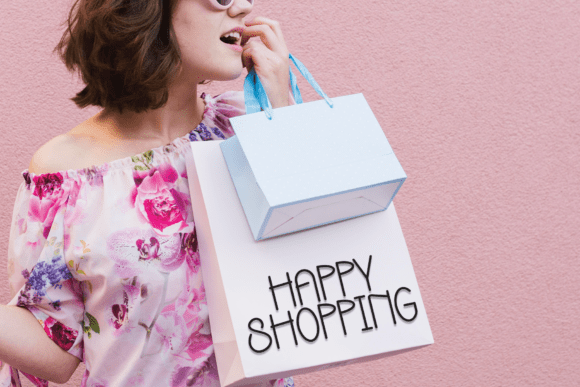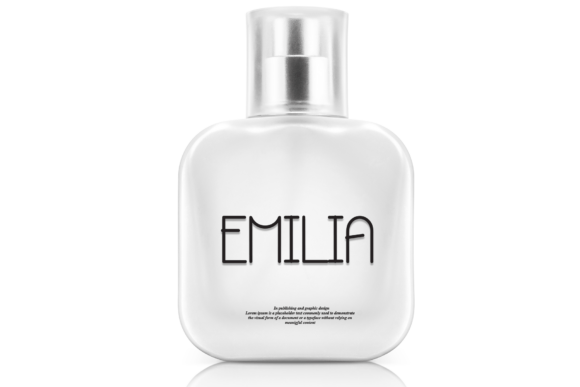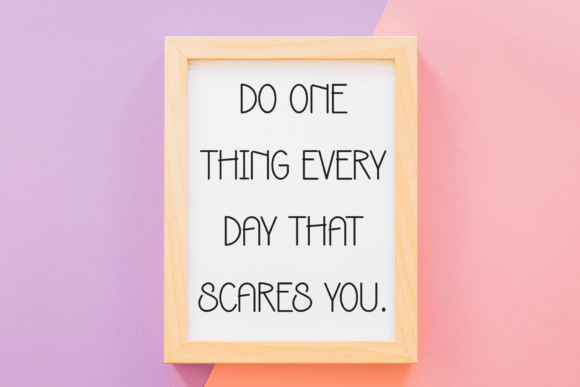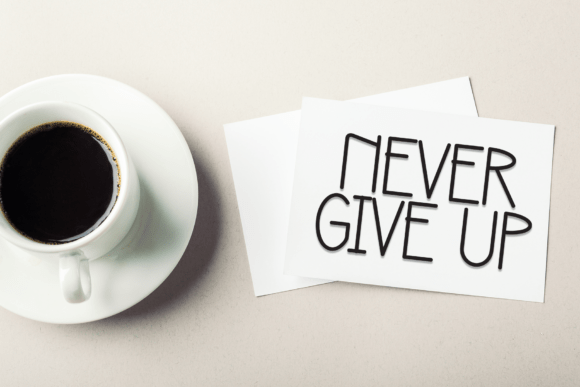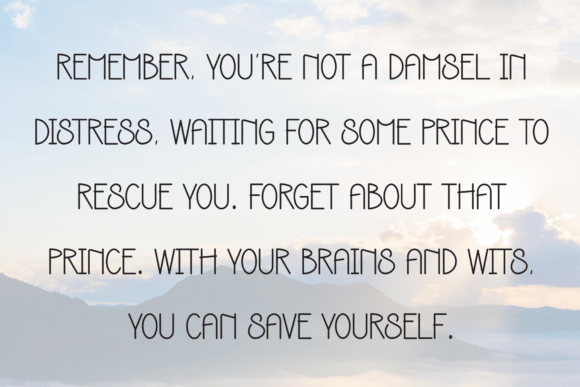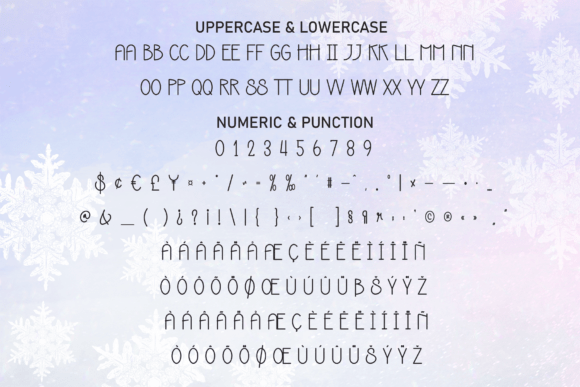
Elevate Your Designs with Fancy Winter Font: A Cut Above the Rest
As the winter season approaches, designers and crafters are on the lookout for unique and captivating fonts to add a touch of elegance to their projects. If you’re searching for a font that exudes sophistication and style, look no further than the Fancy Winter Font. This exceptional font is designed to provide you with an extraordinary experience, making it perfect for a wide range of applications.
Unleash Your Creativity with Fancy Winter Font
The Fancy Winter Font is a masterpiece of typography, boasting the latest style letters that are sure to make your projects stand out. Whether you’re working on wall displays, wedding invitations, social media post logos, advertisements, product packaging, product designs, labels, photography, watermarks, invitations, stationery, or any other project that requires tasteful handwriting, this font has got you covered.
What to Expect from Fancy Winter Font
The Fancy Winter Font offers a world of creative possibilities, allowing you to:
- Create stunning wall displays that capture attention and leave a lasting impression.
- Design beautiful wedding invitations that set the tone for a special day.
- Develop eye-catching social media post logos that elevate your brand’s online presence.
- Produce professional-looking advertisements that drive results.
- Enhance your product packaging and product designs with a touch of elegance.
- Label your products with style and sophistication.
- Add a watermark to your photography with a unique and personalized touch.
- Craft beautiful invitations and stationery that showcase your creativity.
With so many fonts on the market, why choose the Fancy Winter Font? Here are just a few reasons why designers and crafters are raving about this exceptional font:
- Unique and stylish: The Fancy Winter Font offers a fresh and distinctive look that’s sure to set your projects apart.
- Versatile: Suitable for a wide range of applications, from digital projects to print materials.